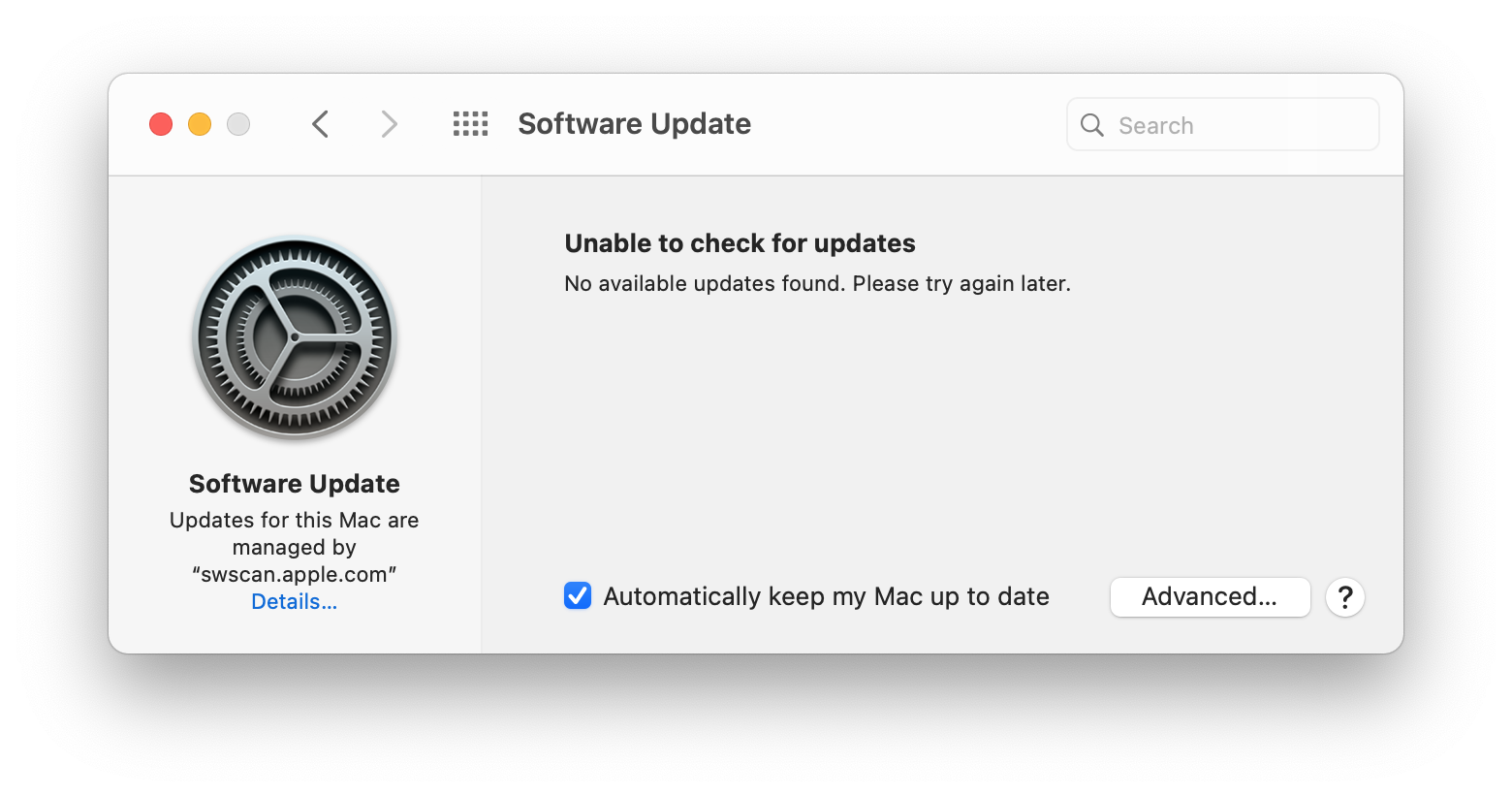
Can anyone comment on the difference in font rendering in the interface/applications between Big Sur and Catalina, especially on non-Retina external monitors?
Apple have introduced Optical Sizing in macOS 11 which should have quite a nice impact in this area. People were complaining that the removed RGB sub-pixel antialiasing in Catalina so that font rendering was terrible on non-retina monitors, so perhaps this is one way to compensate for that?
I haven't noticed any differences in rendering on my iMac 21.5" 1080p. Nor are there any new options that I can see in System Preferences.
However I always enable HiDPI Mode on non-retina monitors.
Which looks great to my eyes whereas non HiDPI is unusable for me.
ok thanks. I probably wouldn't expect to see any change for HiDPI monitors, or HiDPI mode as the pixel doubling makes the fonts sharp in the first place.
the sad thing on Catalina is that because of the removal of RGB sub pixel antialiasing, my dual-boot Linux desktop looks sharper on my 1440p external monitor.